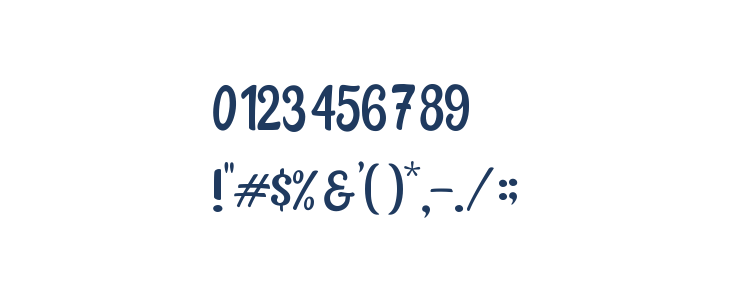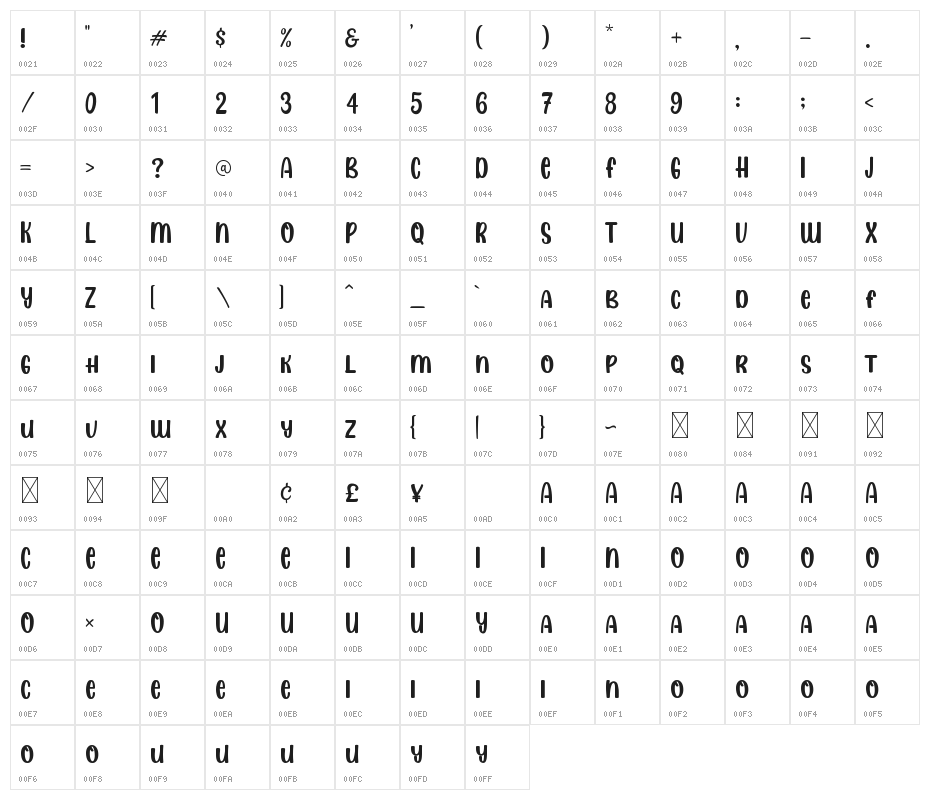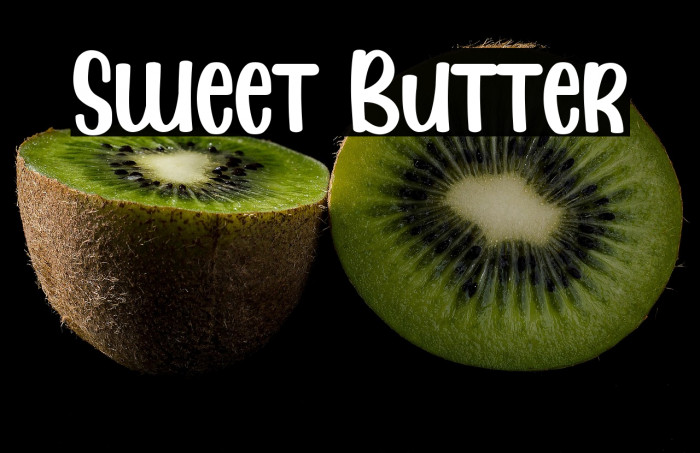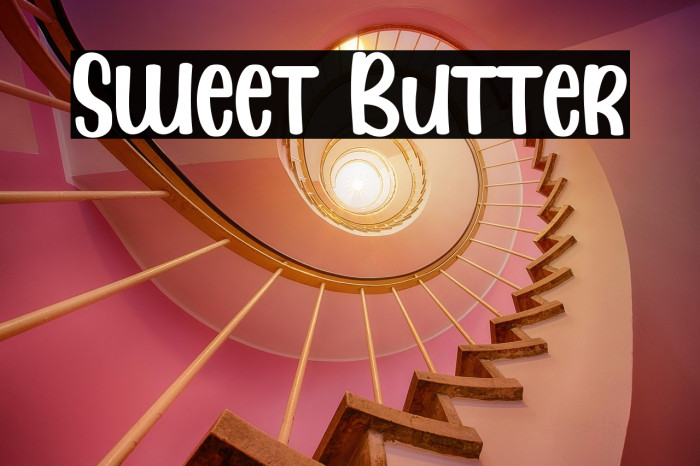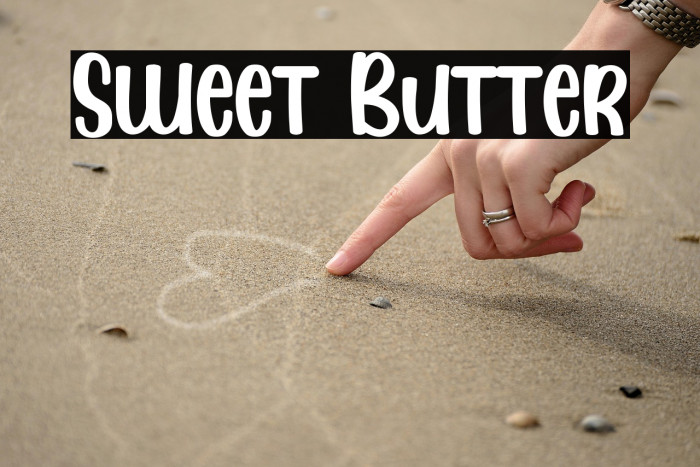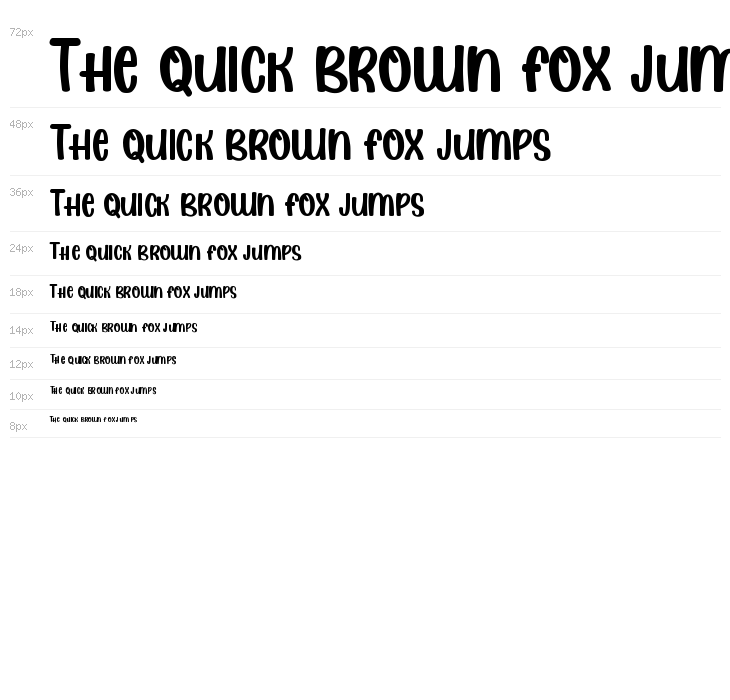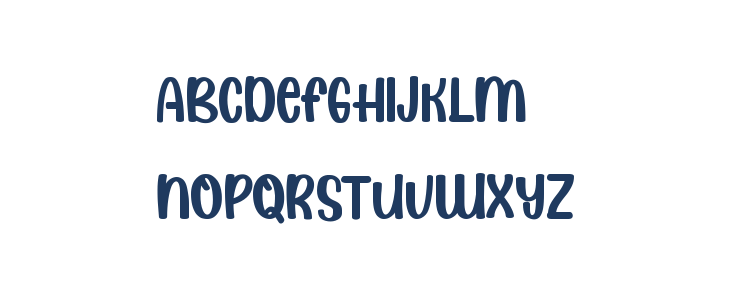
Sweet Butter Font
Sweet Butter Description
This font features a playful and rounded style, characterized by its bold and smooth curves. The letters have a consistent thickness, giving it a friendly and approachable appearance. The rounded edges and slightly condensed form make it ideal for creating a warm and inviting atmosphere. The numerals and special characters maintain the same playful aesthetic, ensuring uniformity across all text elements. Its design is both modern and whimsical, making it suitable for a variety of creative projects.
| Width | Condensed |
| Overall Style | Playful, Modern |
| Proposed Projects | Ideal for children's books, playful branding, greeting cards, and casual invitations. |